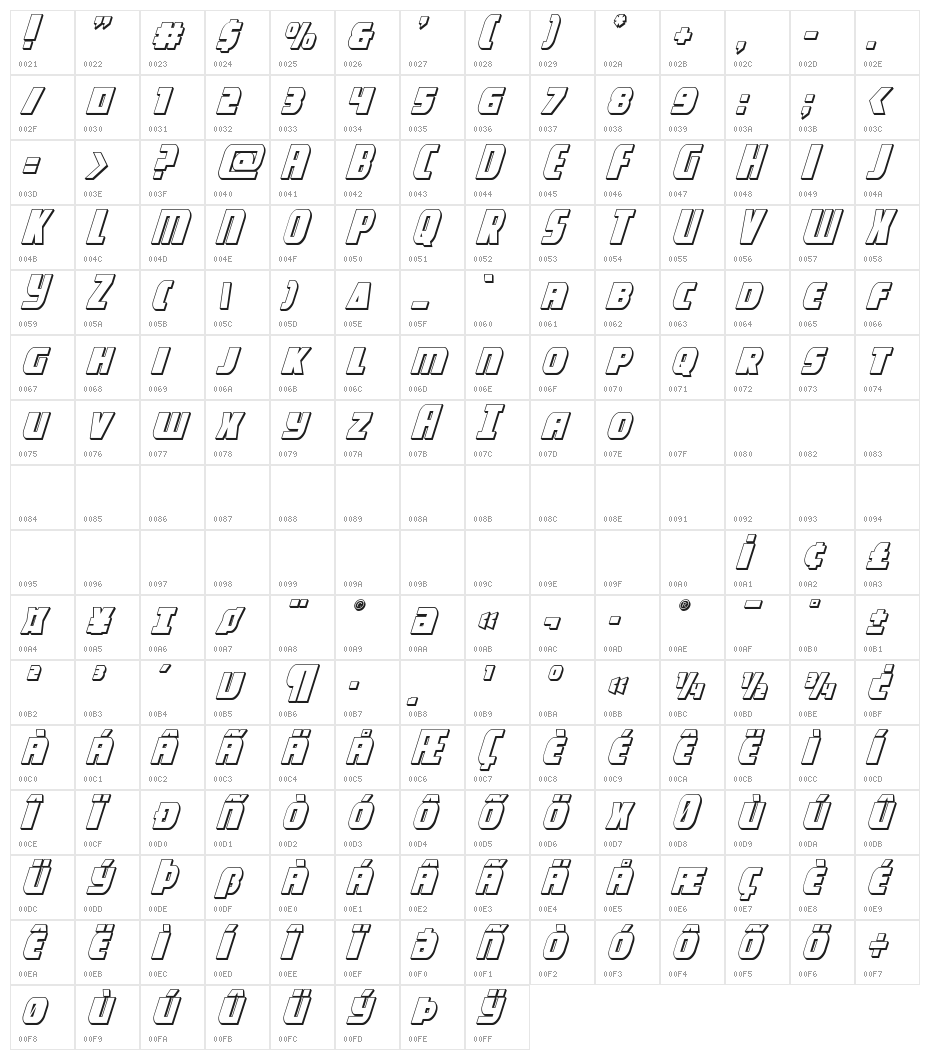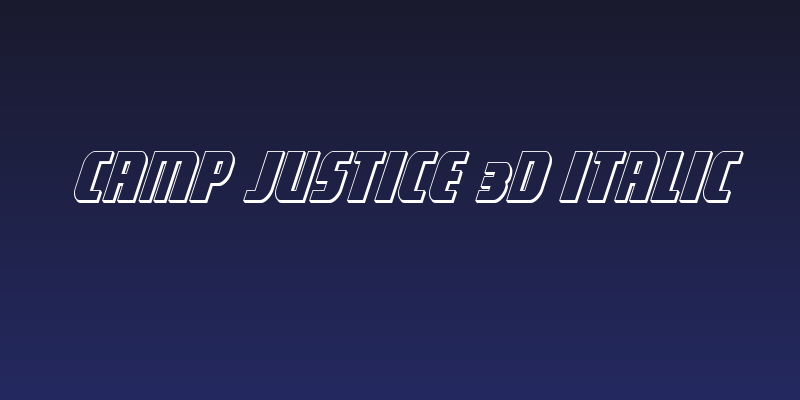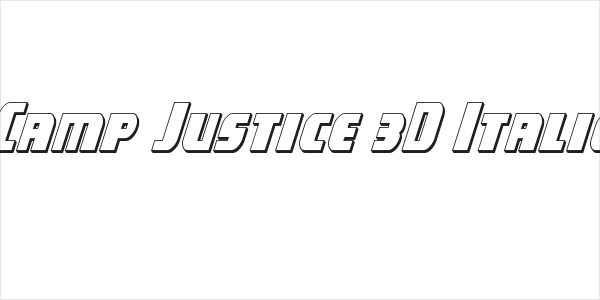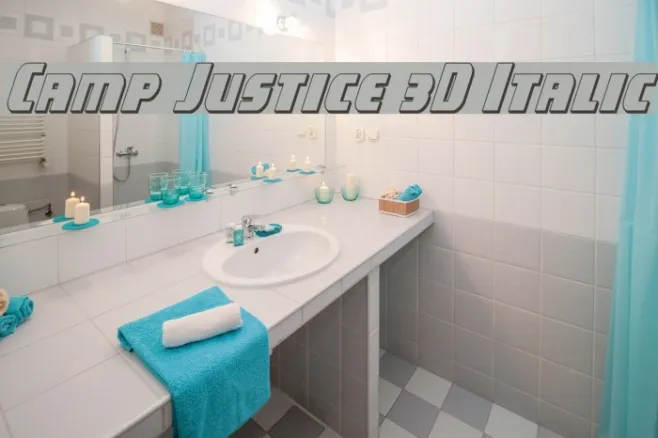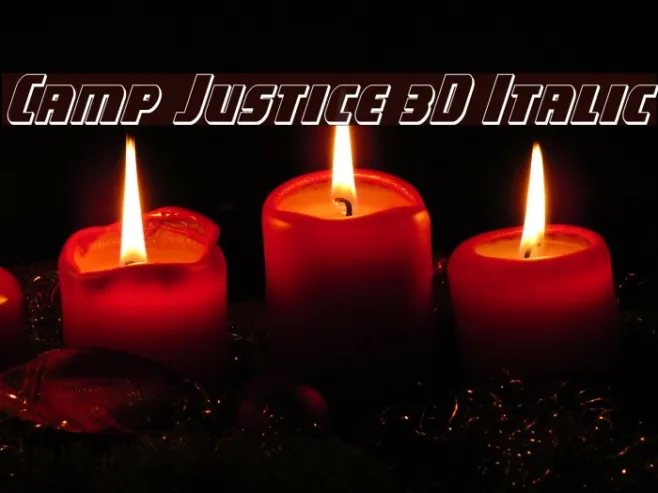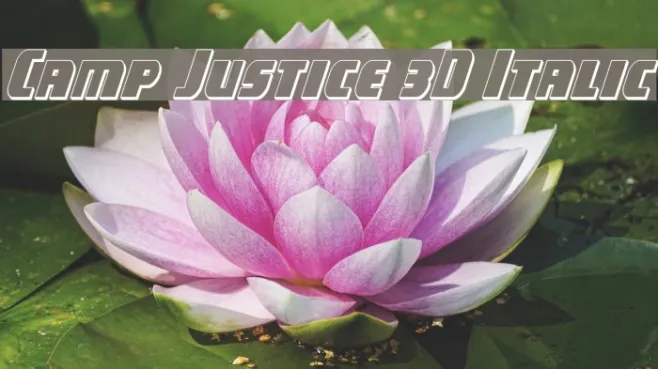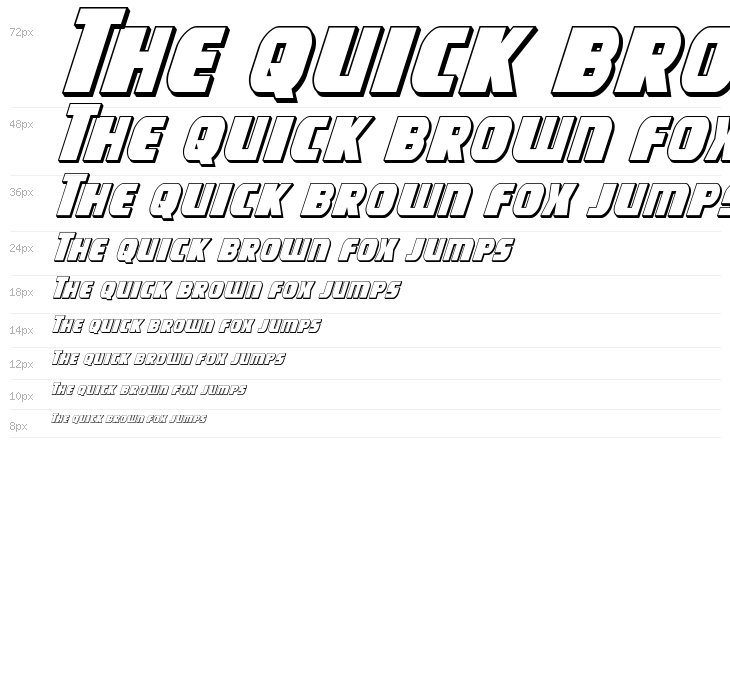
Camp Justice 3D Italic Font
Camp Justice 3D Italic Description
This font features a bold, three-dimensional italic style that commands attention. Its blocky, geometric letterforms are outlined, creating a striking visual effect that adds depth and dimension. The uppercase and lowercase letters maintain a consistent width, contributing to a cohesive and uniform appearance. The numerals and special characters follow the same design principles, ensuring versatility across various applications. The font's strong presence makes it ideal for projects that require a bold statement, such as posters, headlines, and branding materials.